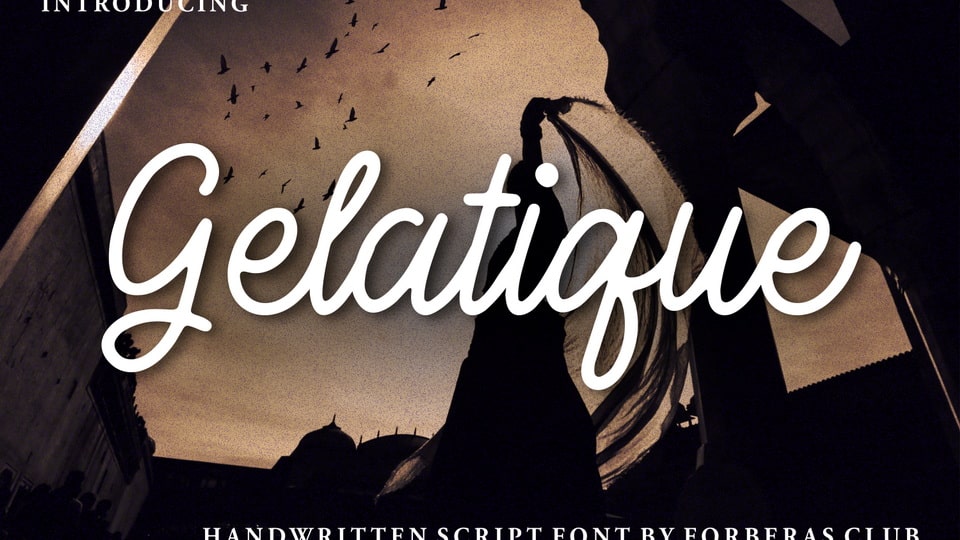
Download Gelatique font, a beautiful monoline handwritten script typeface. Gelatique is defined by smooth curves and is perfect for branding or editorial designs.